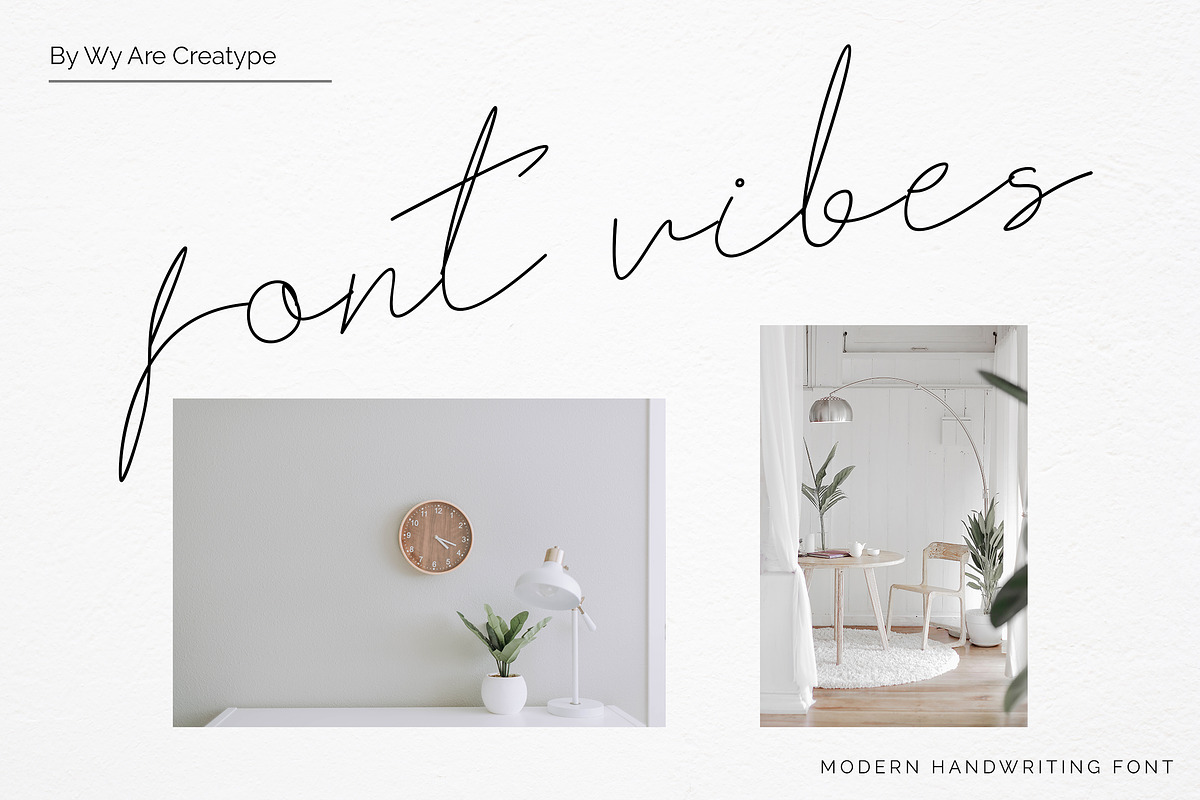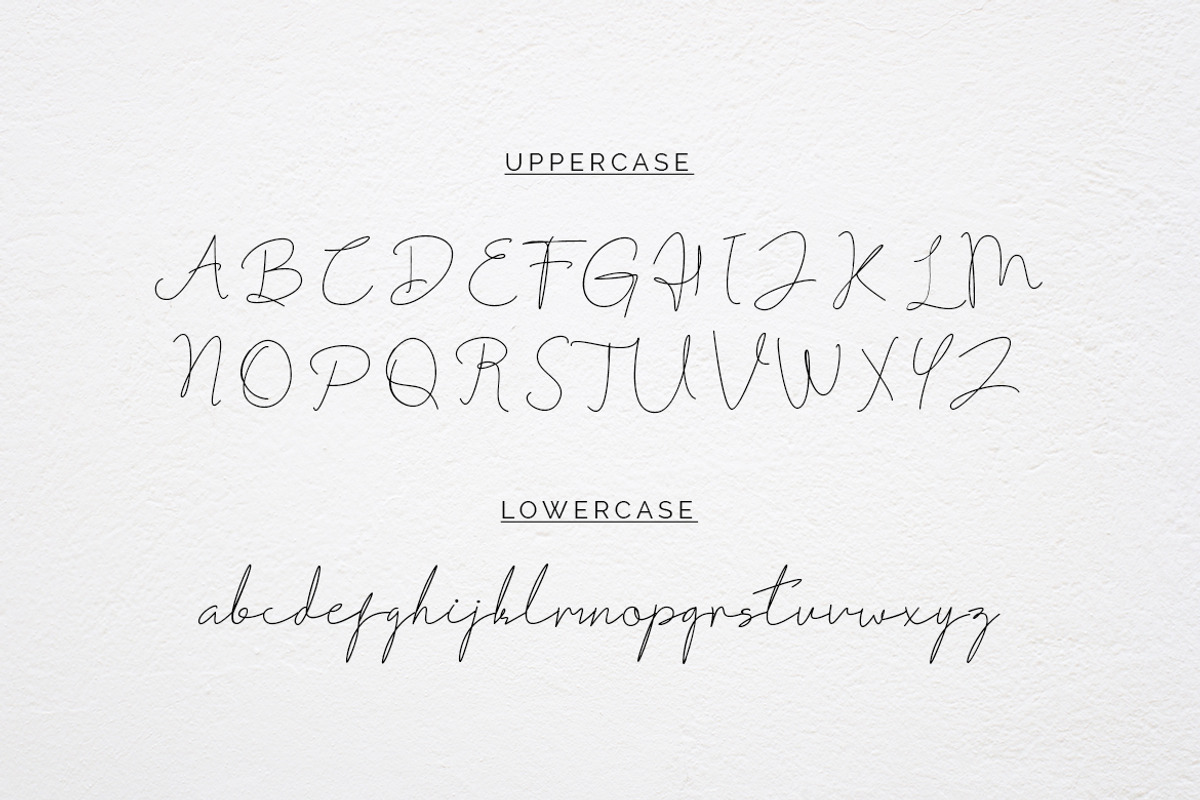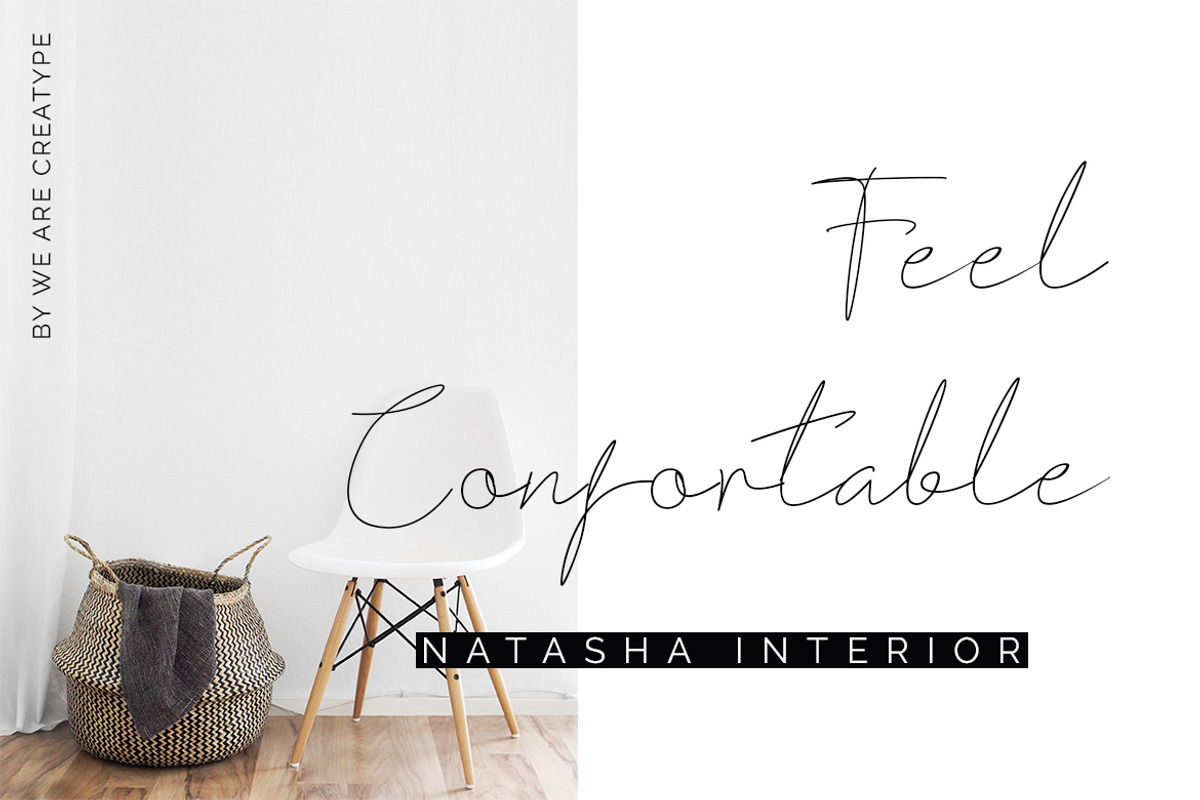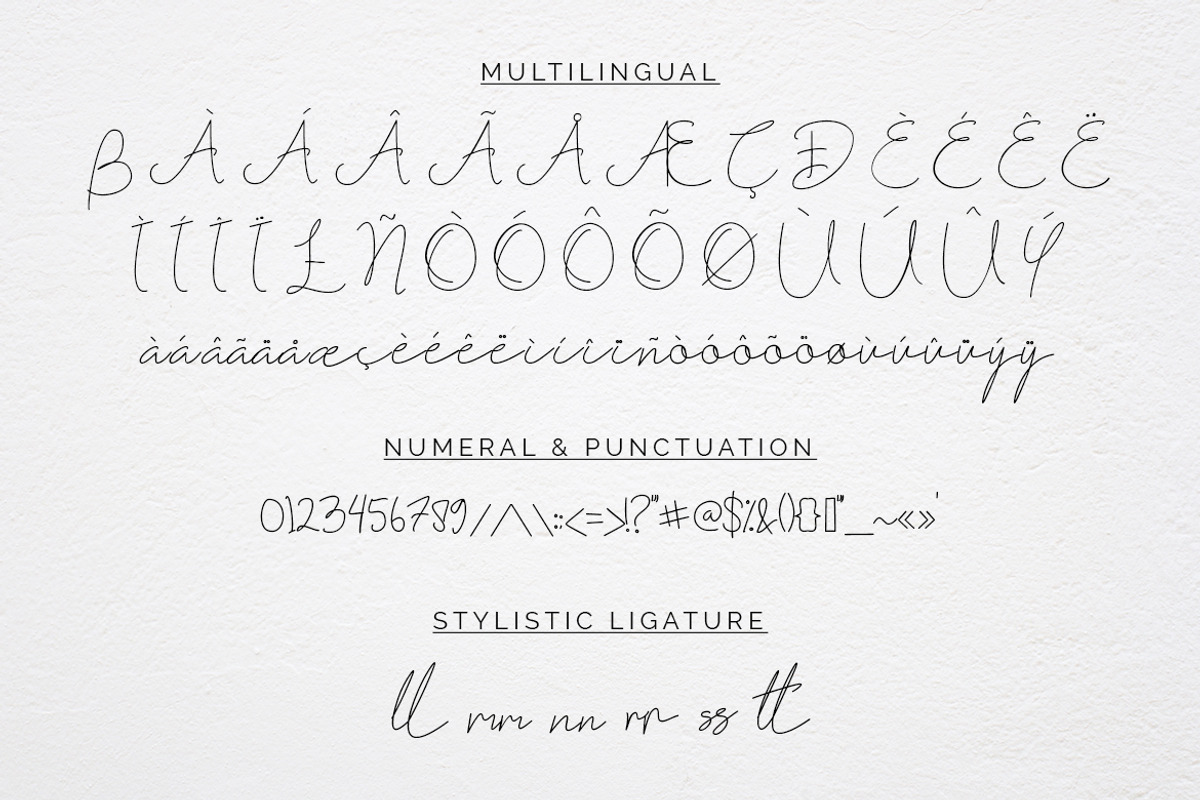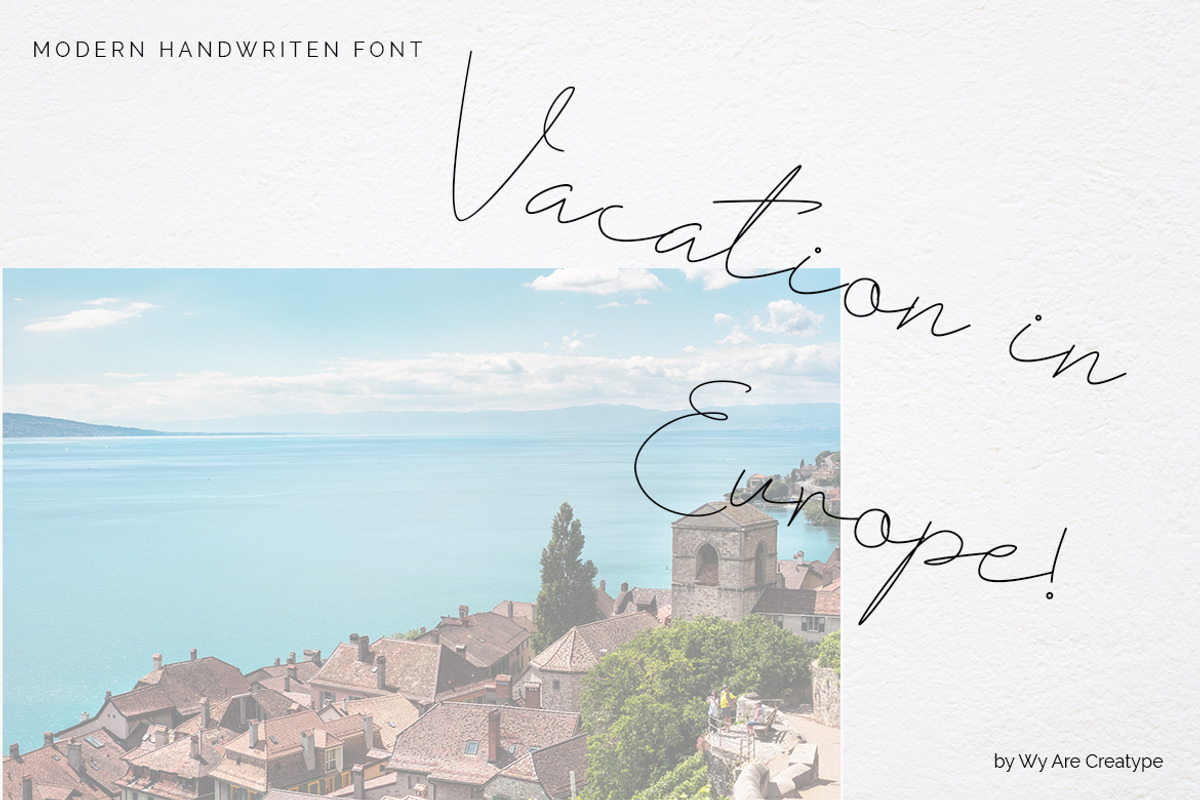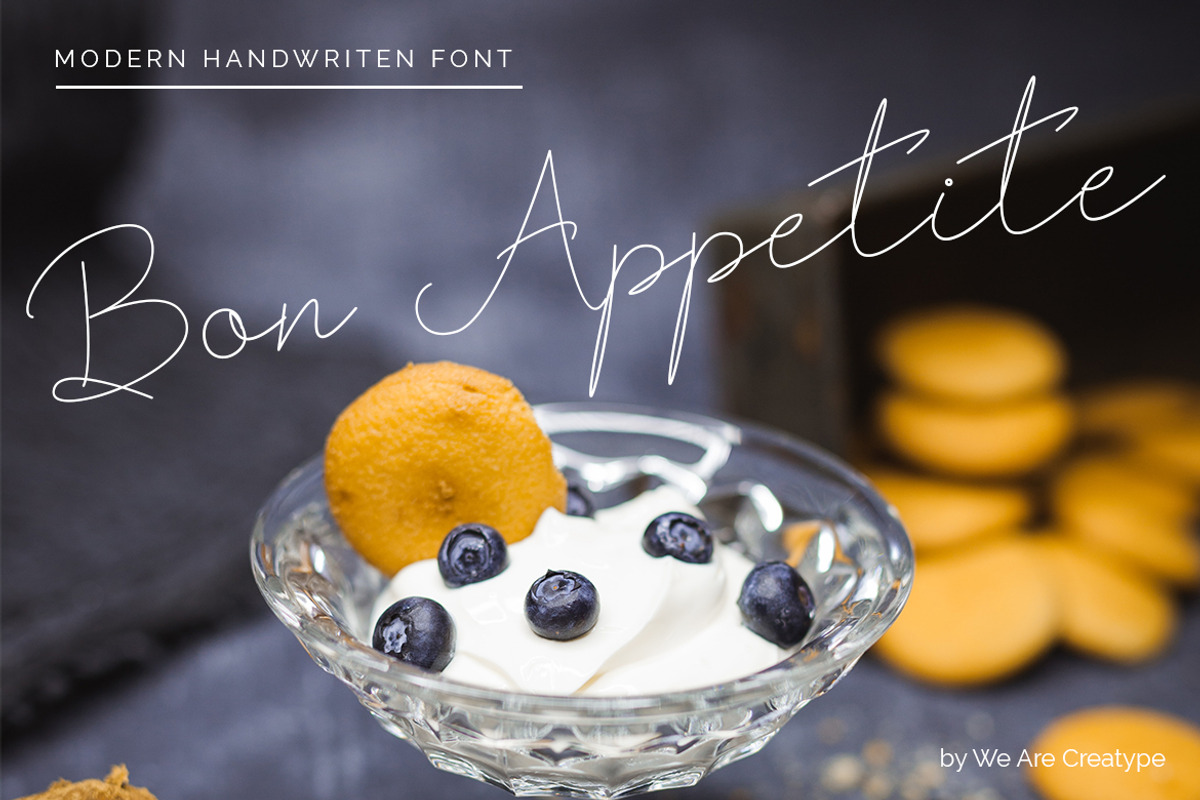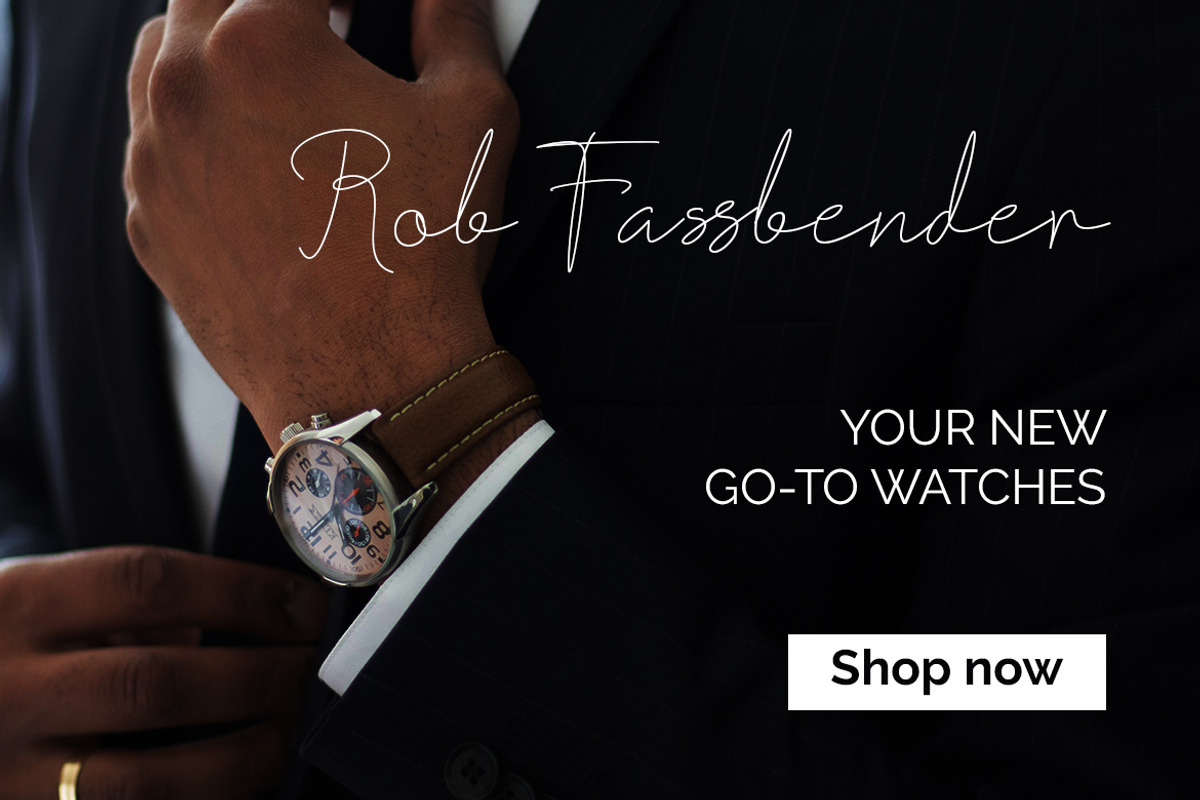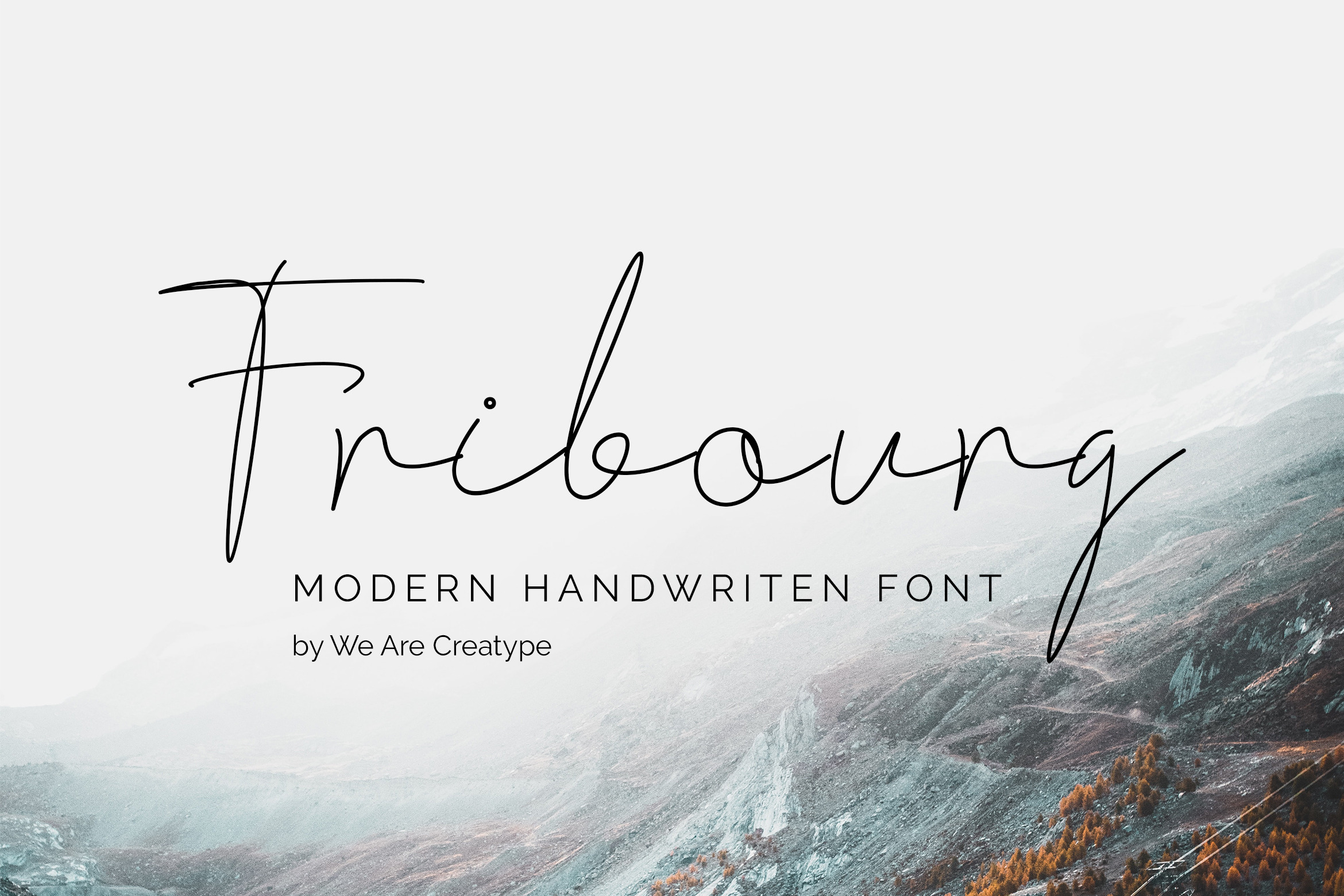
Fribourg Modern Handwritten Font
The Fribourg Handwritten font is a unique and stylish font that has been handcrafted using a pen. It has a handwritten, organic feel to it, with a variety of different stroke widths and flourishes that give it character and personality. The font is perfect for use in a variety of projects, including invitations, greeting cards, posters, and more. It is a versatile and expressive font that is sure to add a touch of whimsy and creativity to any design.